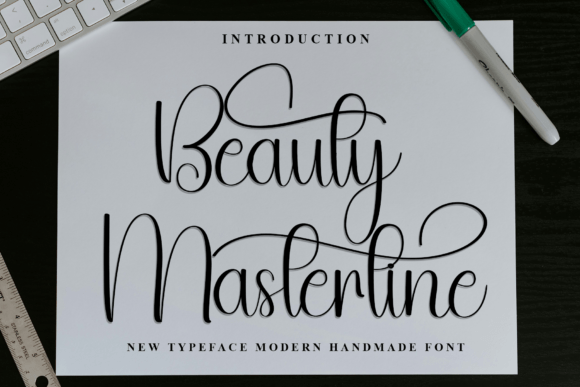
Introducing Beauty Masterline Font: Elevate Your Designs with Elegance
In the world of typography, a font can make or break the aesthetic of a design project. For designers and crafters seeking to infuse their work with a touch of sophistication and timeless elegance, the Beauty Masterline Font is an exceptional choice. This stunning font is not only beautiful and stylish but also imbued with a contemporary atmosphere, making it perfect for a wide range of design applications.
Inspired by Timeless Classic Calligraphy
The Beauty Masterline Font draws its inspiration from classic calligraphy, a traditional art form that has been cherished for centuries. Calligraphy, with its flowing lines and intricate letterforms, has always been a symbol of elegance and refinement. The Beauty Masterline Font captures the essence of this timeless art, translating it into a modern typeface that is both classic and contemporary.
Balanced and Varied: The Mark of Excellence
One of the standout features of the Beauty Masterline Font is its impeccable form. The font has been meticulously designed to strike the perfect balance between style and readability. Each letterform is carefully crafted to ensure that the font flows smoothly, making it a joy to read and behold. The balance and variation in the font’s design elements contribute to its elegance, setting it apart from more generic typefaces.
Designed to Enhance the Beauty of Your Projects
Whether you’re working on a branding project, crafting a beautiful wedding invitation, or designing a stylish website, the Beauty Masterline Font is designed to elevate your work. Its versatility means it can be used across various design applications, from digital media to print. The font’s elegant and refined appearance ensures that your projects will stand out, making a lasting impression on your audience.
Understanding the needs of designers, the Beauty Masterline Font comes with a significant advantage: it’s PUA (Private Use Area) encoded. This encoding allows for easy access to all the amazing glyphs and ligatures, making it incredibly user-friendly. Designers can effortlessly incorporate these special characters into their work, adding an extra layer of creativity and sophistication to their designs.
Why Choose Beauty Masterline Font?
- Elegant and Stylish: Adds a touch of sophistication to any design project.
- Contemporary Atmosphere: Blends classic inspiration with modern appeal.
- PUA Encoded: Easy access to glyphs and ligatures for enhanced creativity.
- Versatile: Suitable for a wide range of design applications, from digital to print.
- Impeccable Form: Carefully designed for perfect balance and readability.
The Beauty Masterline Font is a remarkable addition to any designer’s toolkit. Its elegant and stylish appearance, inspired by timeless classic calligraphy, brings a touch of sophistication to any project. With its impeccable form, versatility, and PUA encoding for easy access to glyphs and ligatures, this font is poised to elevate your designs to new heights. Whether you’re a professional designer or a crafting enthusiast, the Beauty Masterline Font is an excellent choice for anyone looking to infuse their work with elegance and style.